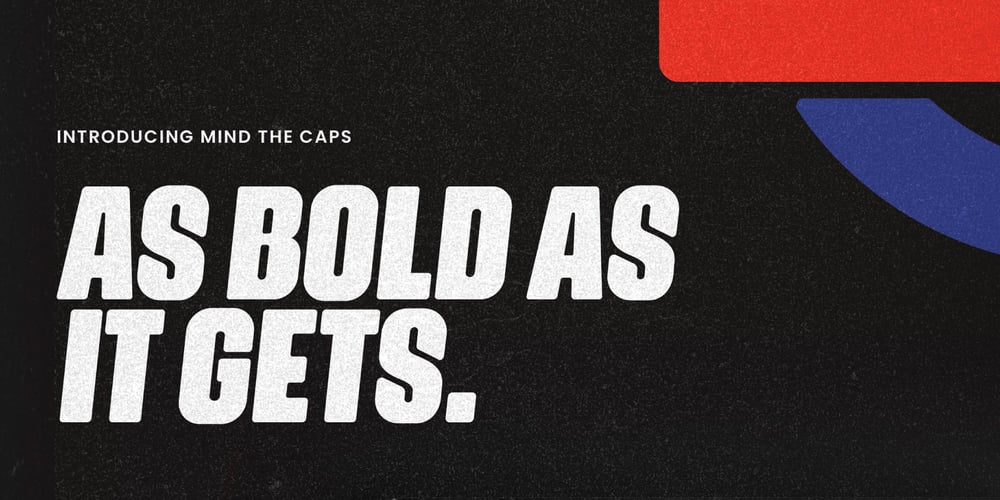
Mind The Caps Font Family was designed by Philip Trautmann and published by Shaped Fonts. Mind The Caps contains 1 styles and family package options. “Mind the Caps,” is a bold, all-caps display typeface that draws inspiration from London’s iconic “Mind the Gap” signage and the city’s urban underground aesthetic. The typeface is a tribute to London, fashioned with affection and nostalgia, reflecting a yearning for connection during times of separation.This typeface boasts a friendly yet commanding presence with its smooth curves and rounded edges, giving it a contemporary, stylized character. It eschews sharp corners for a softer, approachable feel while maintaining a strong, assertive stance that’s ideal for making statements. The solid structure of the letters suggests reliability and presence, suitable for designs that require immediate attention and legibility.Designed for impact and versatility, “Mind the Caps” is particularly well-suited for creating logos and headlines. Its substantial letterforms can stand out in a crowded visual space, making it an excellent choice for branding and advertising where boldness is key. The font’s all-caps nature underscores its intent to grab attention and convey messages with confidence.